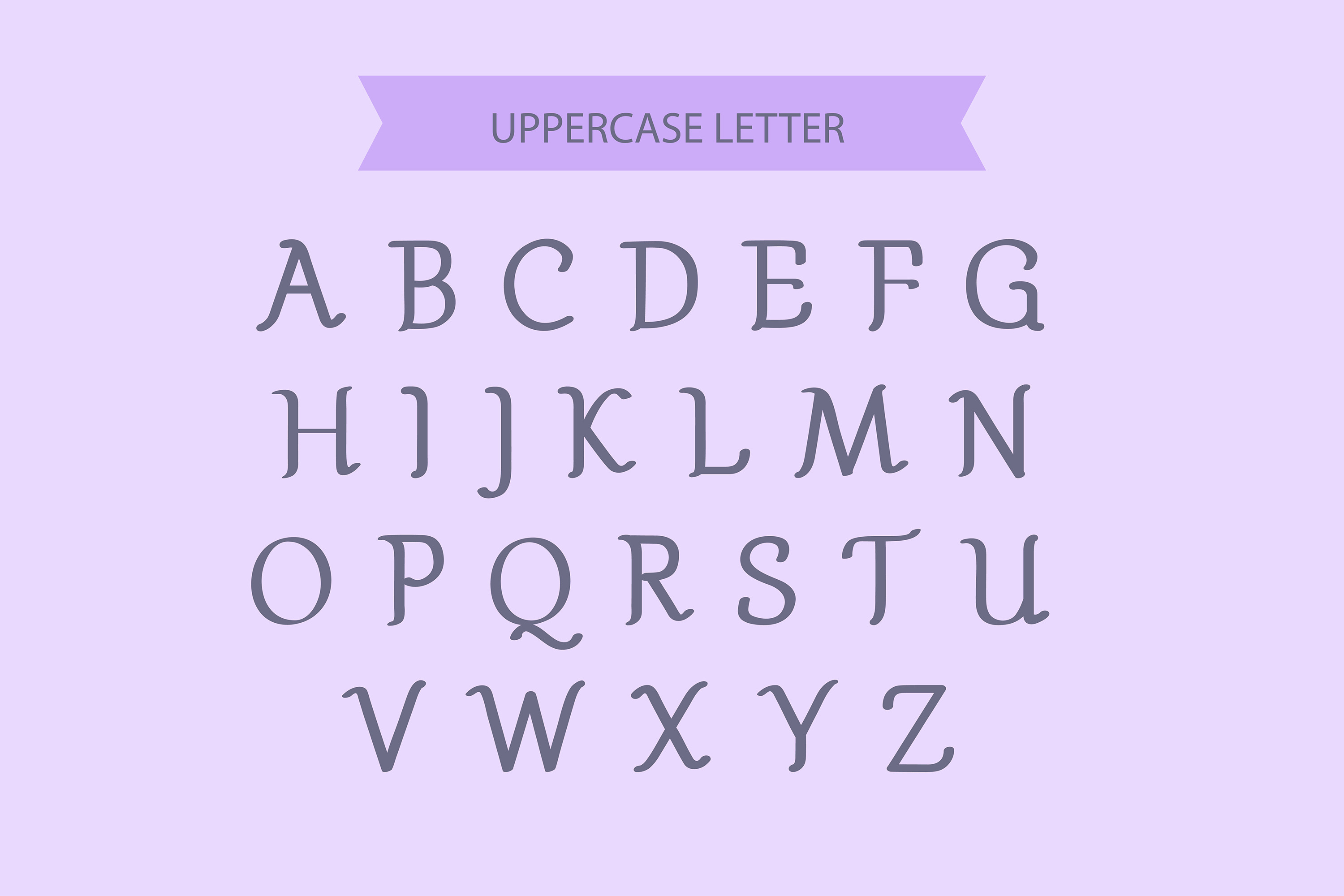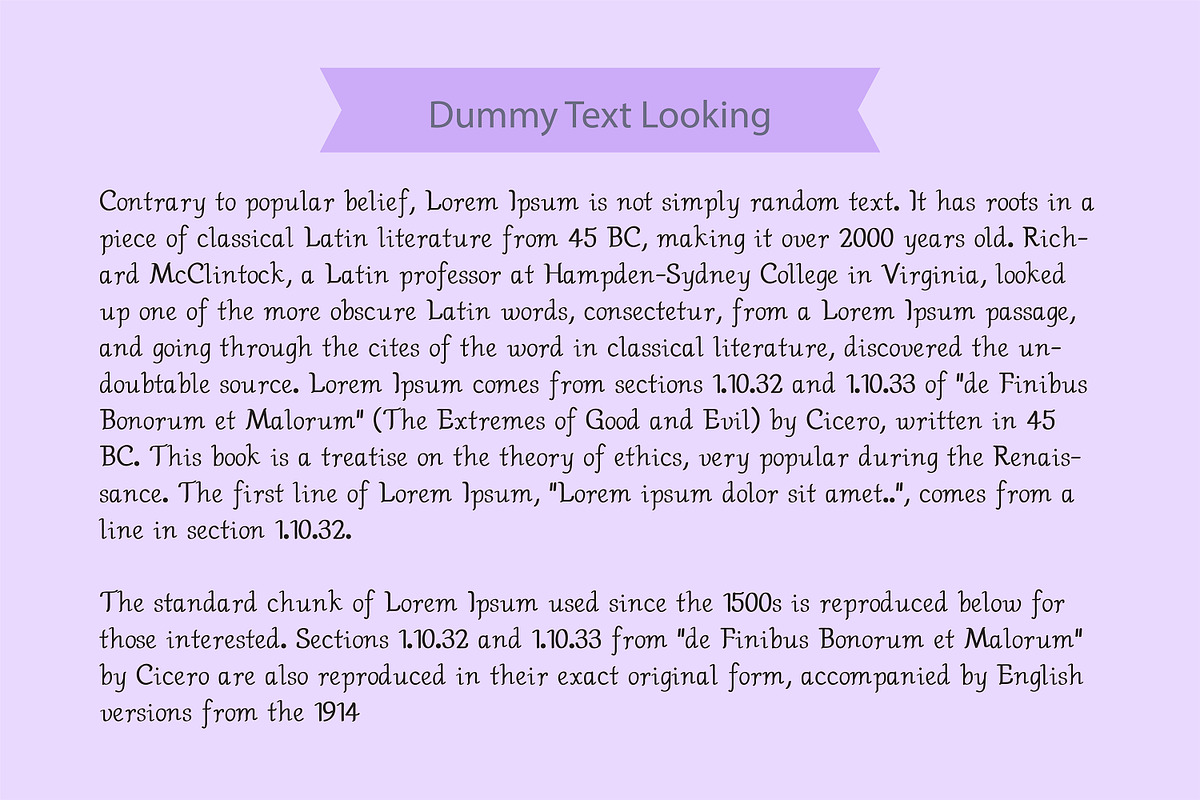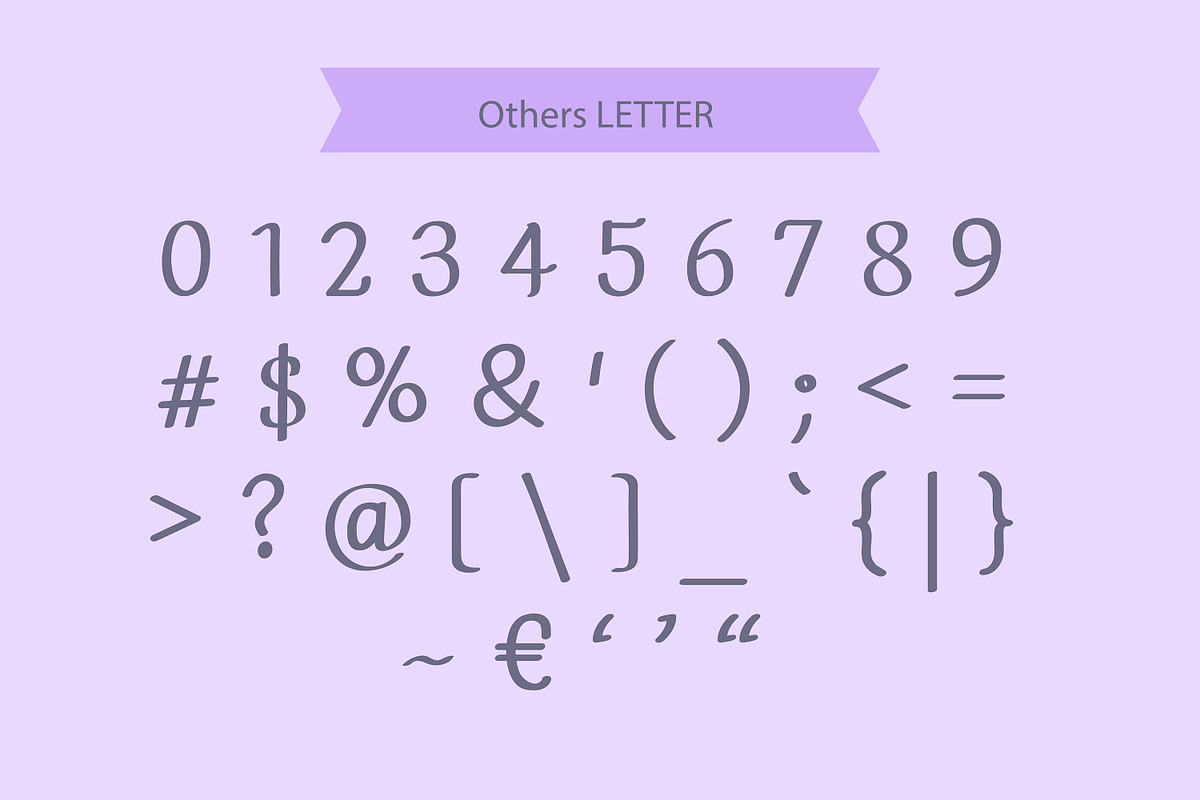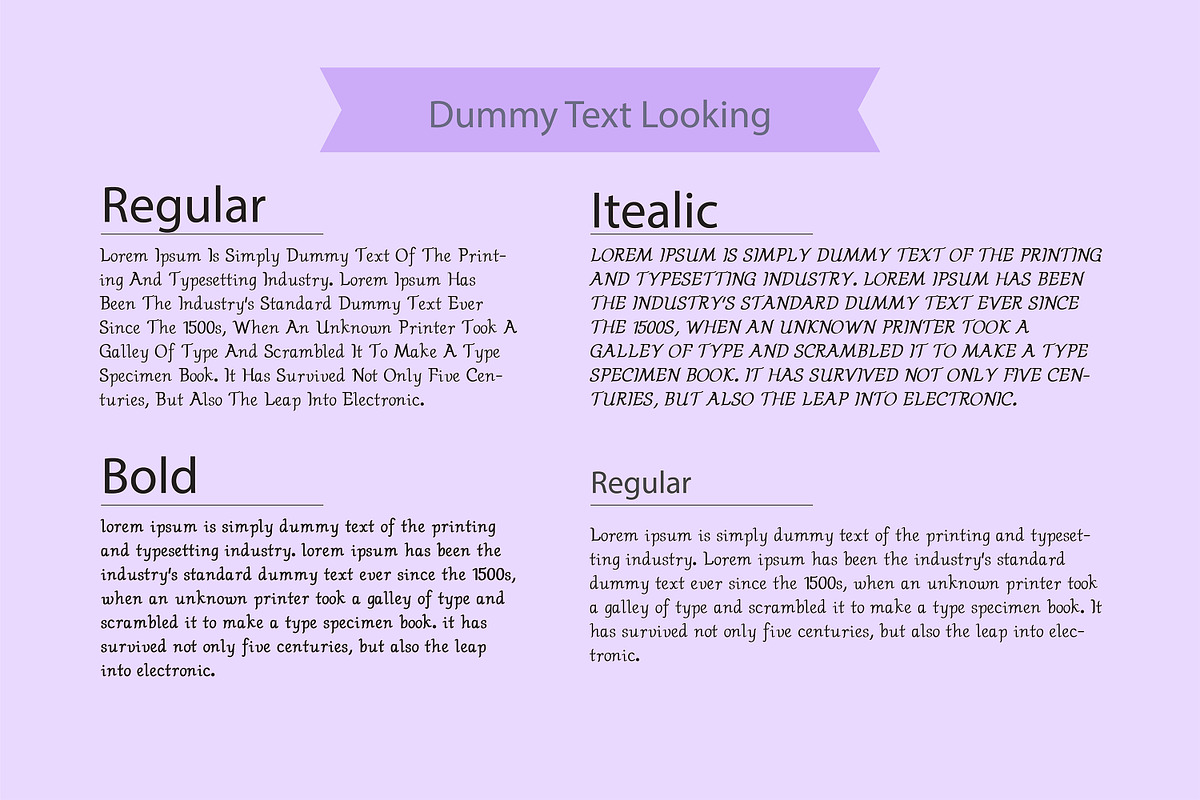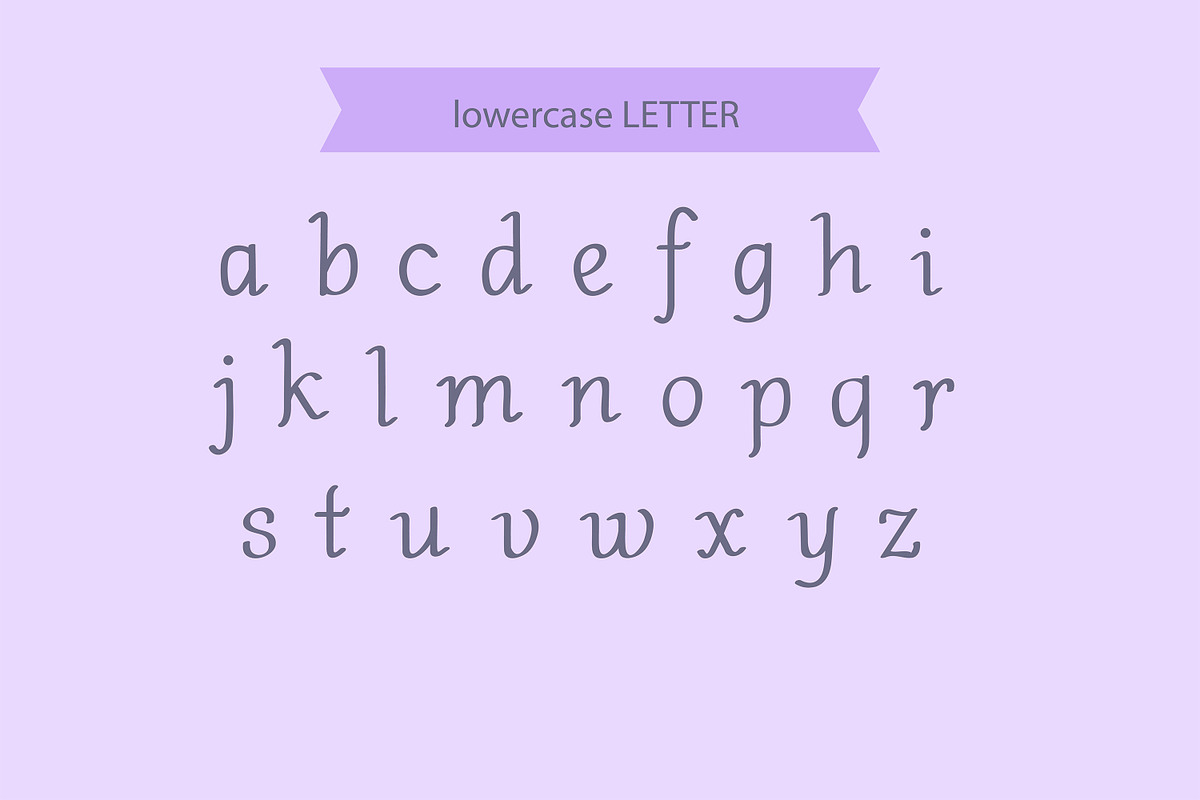
Brimful Font
Brimful Font is a stylish Font. Available in Regular, Italic ,Bold, with all special characters.
It’s useful for any Design project. card, e-card, Good for Logos & Headlines, Poster, Tag design, Newspaper & Magazine Ad Design and many more. True type and Open type font files